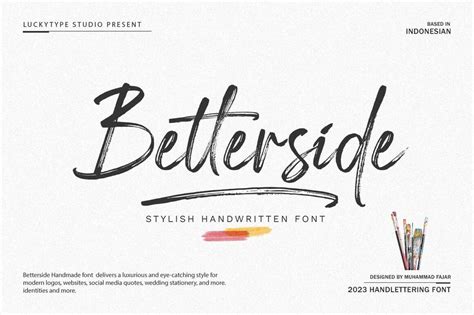
Hey guys! Are you looking to give your projects a unique and stylish touch? Well, you’re in the right place! In this comprehensive guide, we’ll dive deep into everything you need to know about the Betterside font , including where to download it, how to use it, and some cool ideas to spark your creativity. Let’s get started!
What is Betterside Font?
Before we jump into the download process, let’s talk about what makes the Betterside font so special. Betterside is a modern and elegant script font known for its flowing lines and distinctive style. It’s perfect for adding a personal and sophisticated touch to a variety of projects, such as logos, branding materials, wedding invitations, social media graphics, and much more. The versatility of the Betterside font makes it a favorite among designers and hobbyists alike. Its unique calligraphic style brings warmth and personality to any design. Whether you’re aiming for a chic, contemporary look or something more classic and refined, Betterside can adapt to your needs with ease. Plus, the font often includes ligatures and alternate characters, giving you even more flexibility to customize your text and create truly unique designs. So, if you’re looking for a font that combines elegance with a touch of personality, Betterside is an excellent choice. Its flowing curves and stylish letterforms are sure to make your projects stand out. Experiment with it and see how it can elevate your creative work!
Tips for Using Betterside Font Effectively
Now that you have the Betterside font installed, let’s talk about how to use it effectively to make your designs shine. Here are some tips and tricks to keep in mind:
• Pair it Wisely: Betterside is a script font, which means it’s best paired with a clean and simple sans-serif font for body text. This creates a nice contrast and makes your design more readable. For example, you could pair Betterside with fonts like Arial, Helvetica, or Open Sans.
• Use it Sparingly: Because Betterside is a decorative font, it’s best used for headings, titles, and short phrases. Avoid using it for large blocks of text, as it can become difficult to read. Think of it as an accent that adds flair to your design.